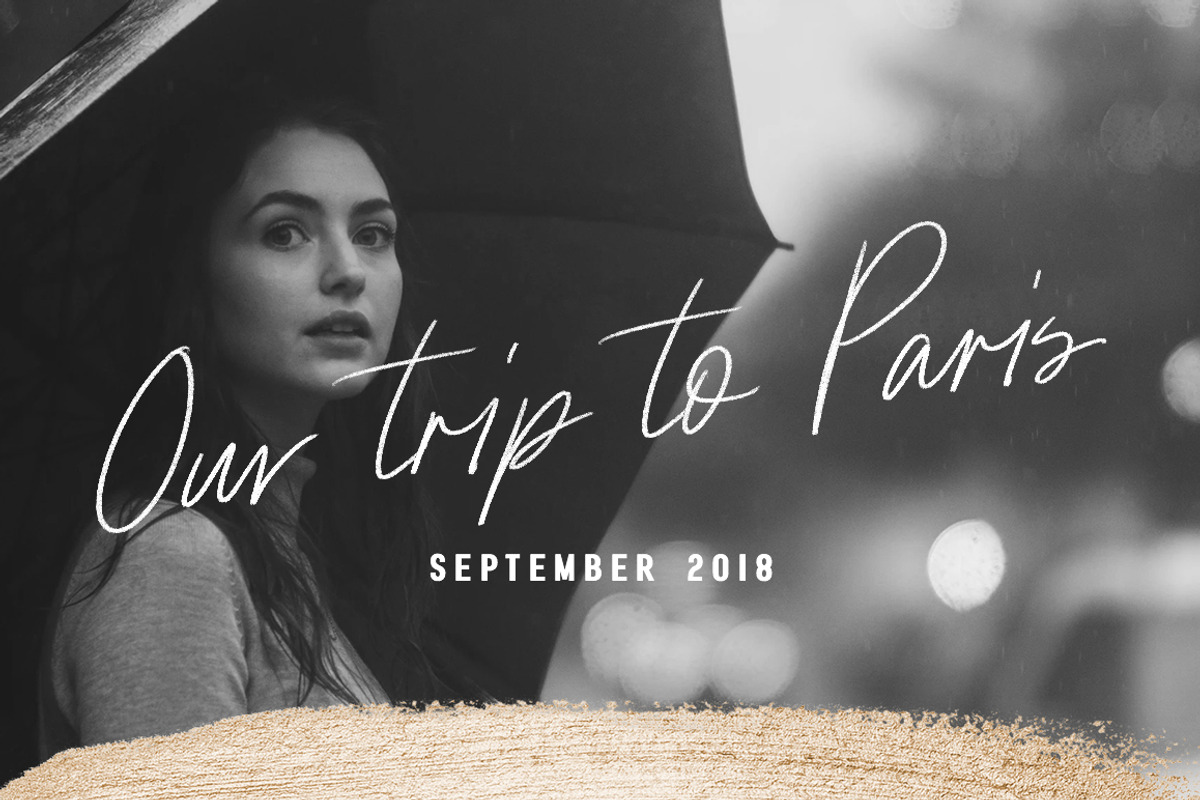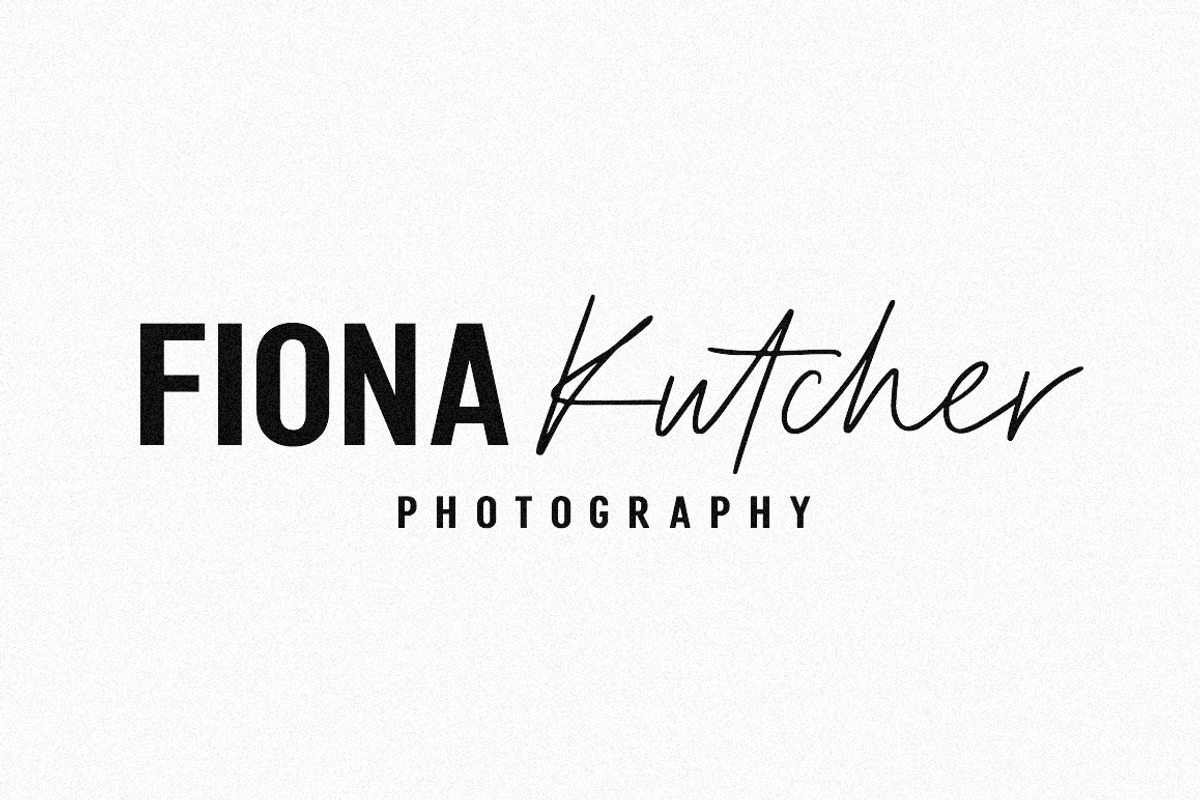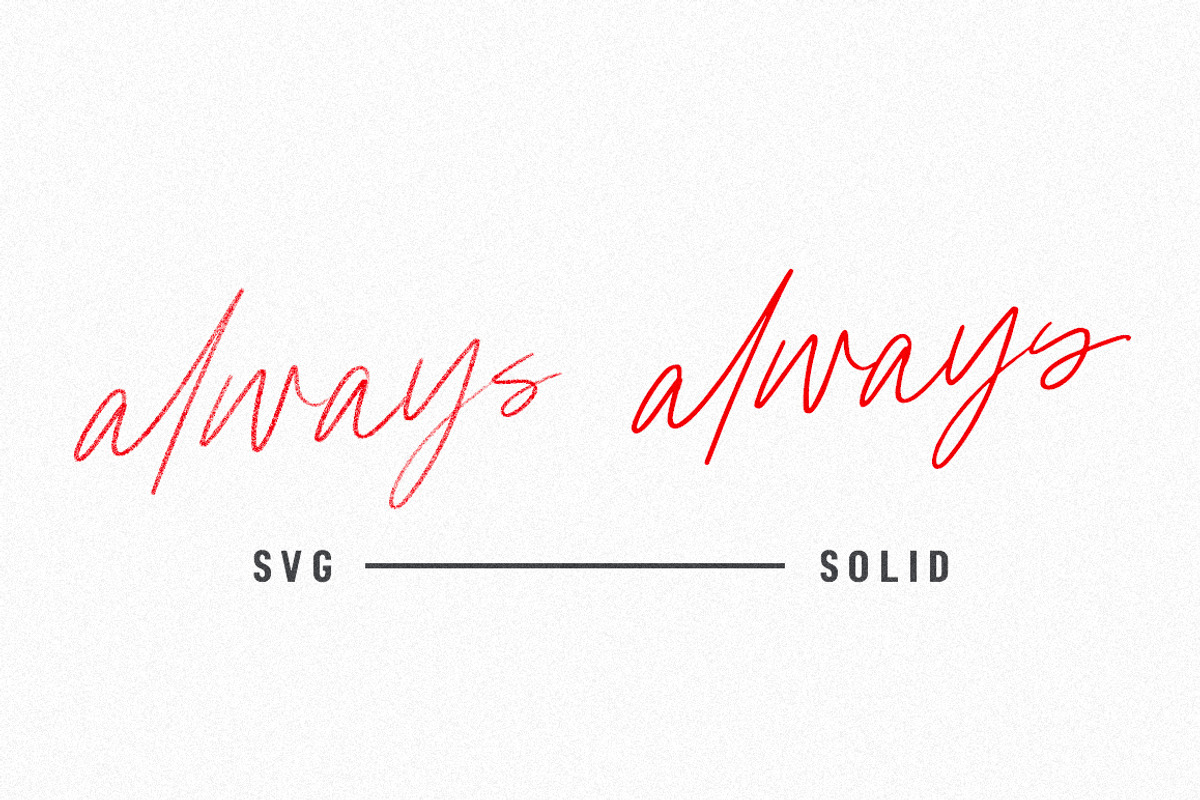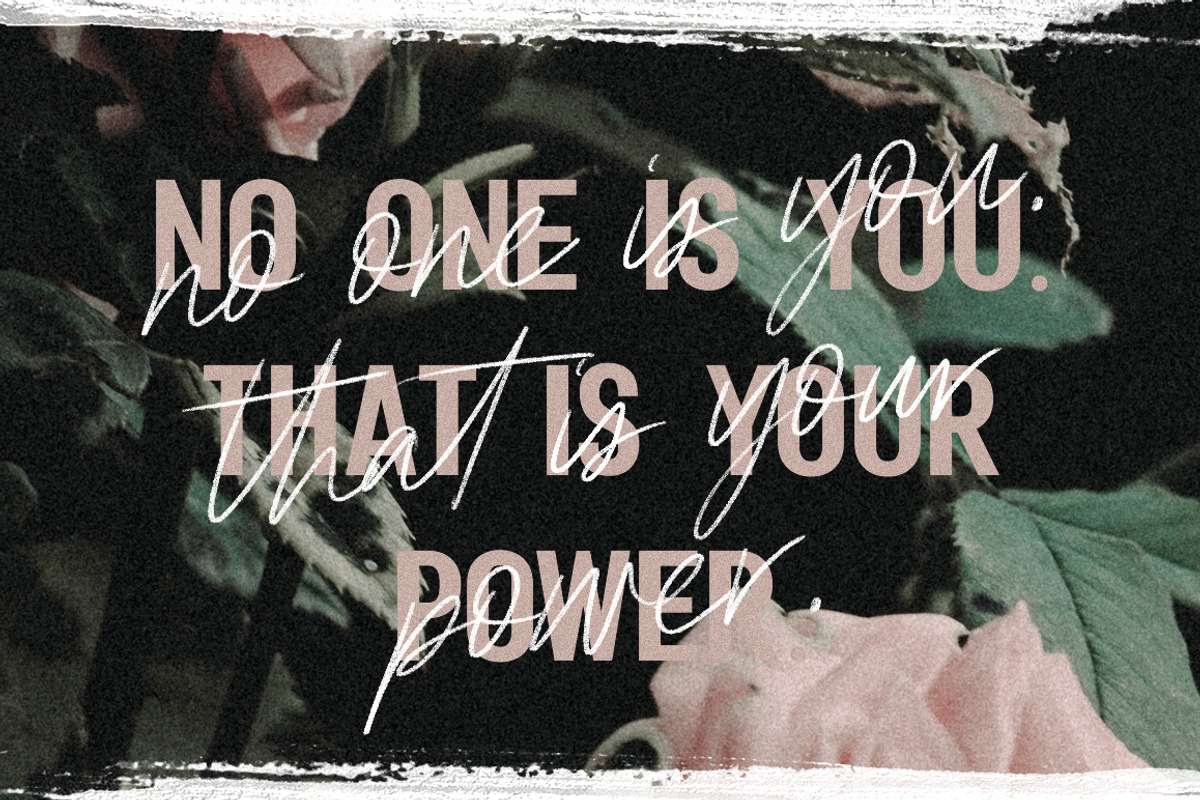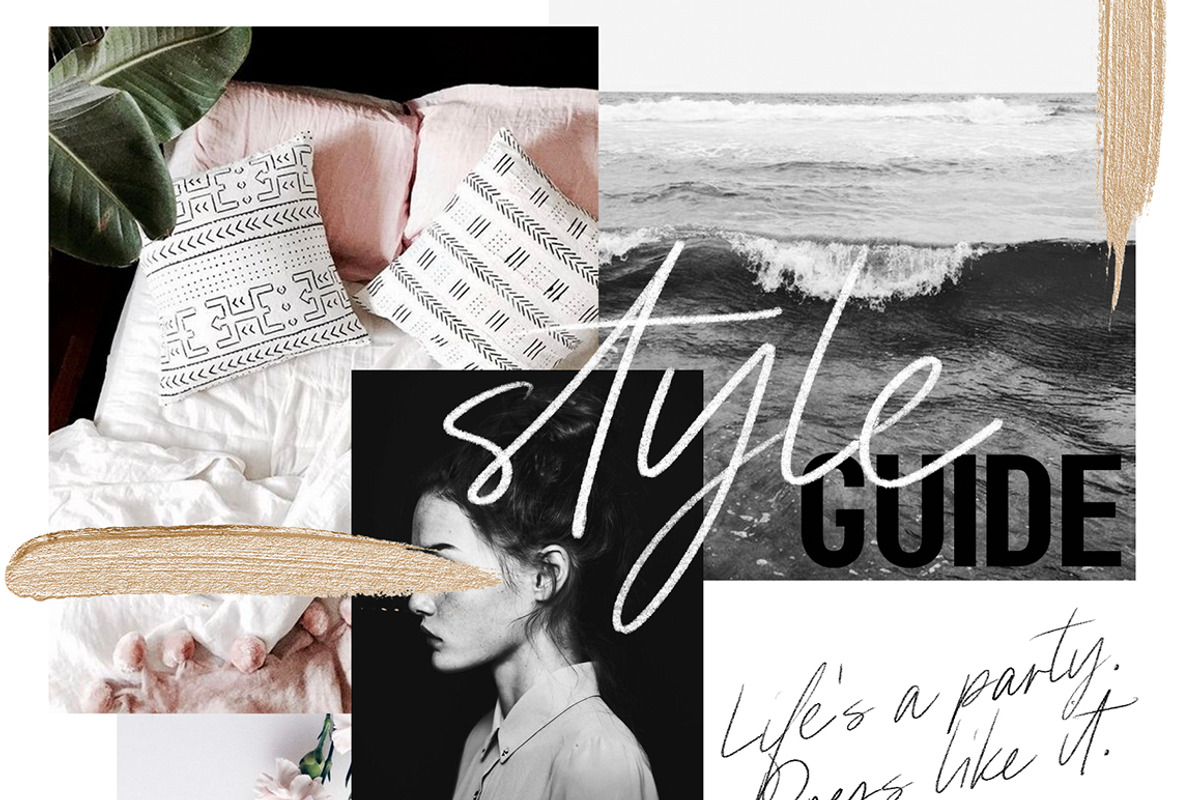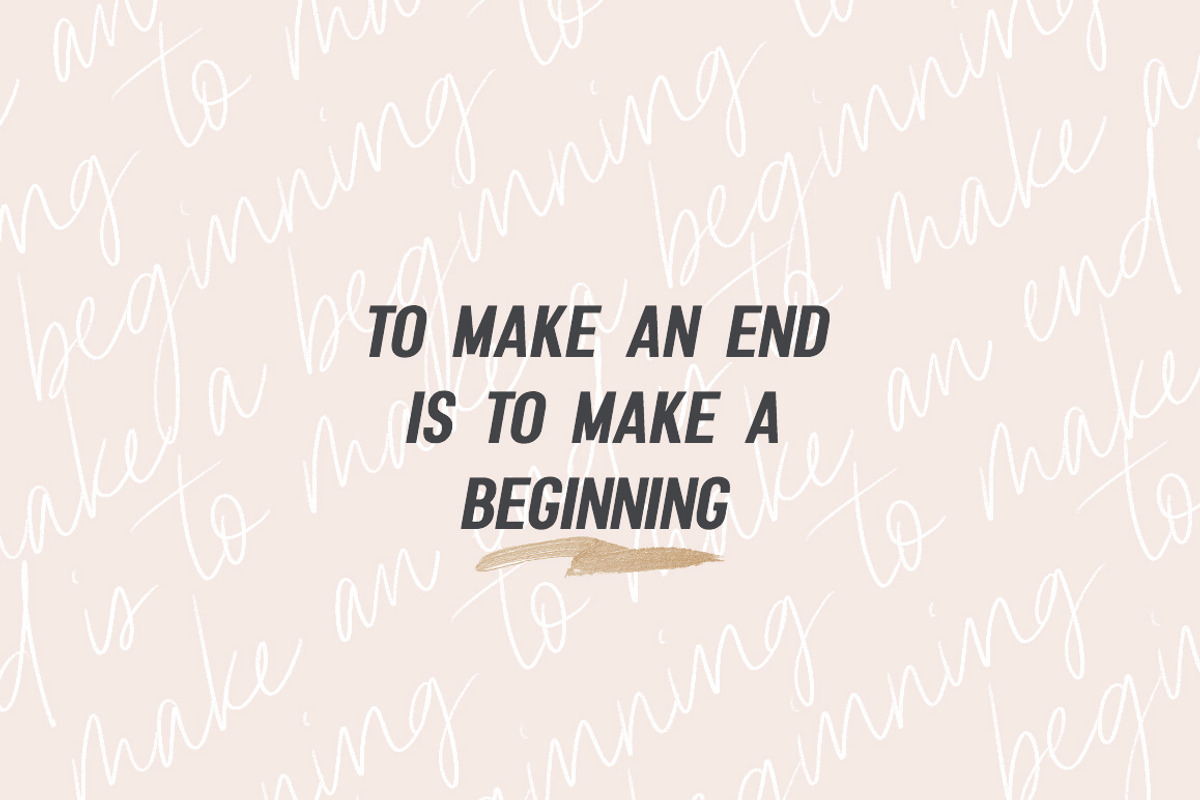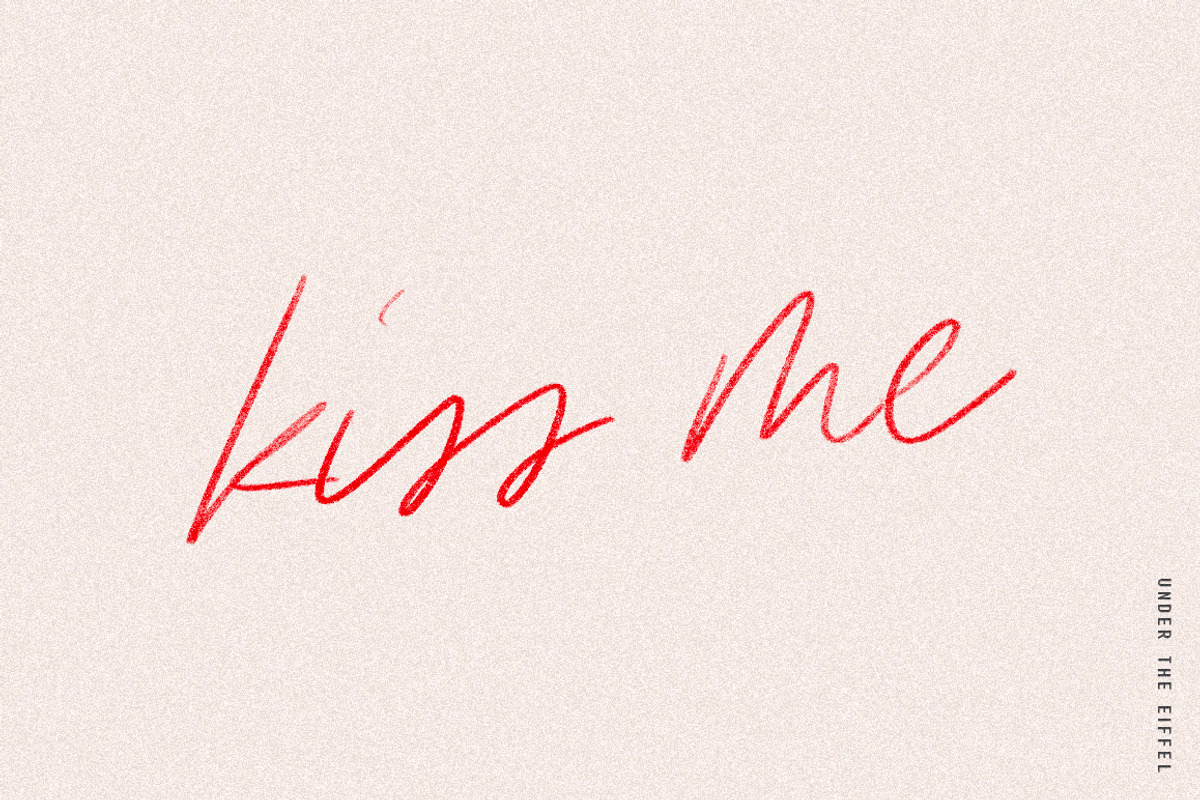
Paris | Font Duo + SVG with Extras
Say hello to Paris, a beautiful new font duo featuring a pencil textured SVG script! Create gorgeous invitations, quotes, mood boards, and more with a delicate, realistic pencil script and a bold, minimal sans (in both italic and regular styles). You also get a bonus pack of 16 gold elements to use in your beautiful design work!
Paris Pencil, an SVG script with the pencil texture built in. SVG fonts currently only work in Photoshop CC 2018 and Illustrator CC 2018, but you can use Paris Script as a solid version in any program. It also includes a whopping 79 ligatures, so your letters will flow more naturally.
Paris Script, a solid version of the SVG script that comes in both TTF and OTF formats. This script looks beautiful and will work in any program. Includes foreign language support. It also includes 79 ligatures, so your letters will flow more naturally.
Paris Sans, an all-caps modern sans serif that is the perfect complement to the script. I love layering the SVG script with this one for quotes, Instagram posts, and more! Includes foreign language support. (TTF & OTF formats)
Paris Sans Slant, an italicized version of the all-caps sans serif. Pairing the script with this variation will help give more movement to your typography. Includes foreign language support. (TTF & OTF formats)